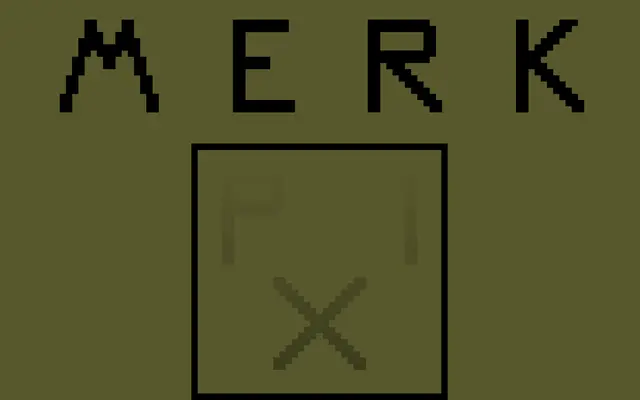
Merk Pix specimen from A2-Type
A pixel-style typeface derived from a Dollfus-Mieg & Cie cross-stitch instruction alphabet, extended to a full character set by A2-Type.
The original Merk Stich specimen offered only uppercase letters intended as a guide for linen stitching, so A2-Type invented the lowercase, numerals and punctuation to complete the family. The letterforms retain the rigid, grid-based quality of their embroidery origins while functioning as a contemporary display typeface. A companion family, Merk Dot, offers the same aesthetic in three weights using dot-pattern construction.
Derived from a historical embroidery instruction alphabet, the letterforms are built on a grid of discrete marks mimicking cross-stitch or pixel patterns, placing it firmly in the display/bitmap category.